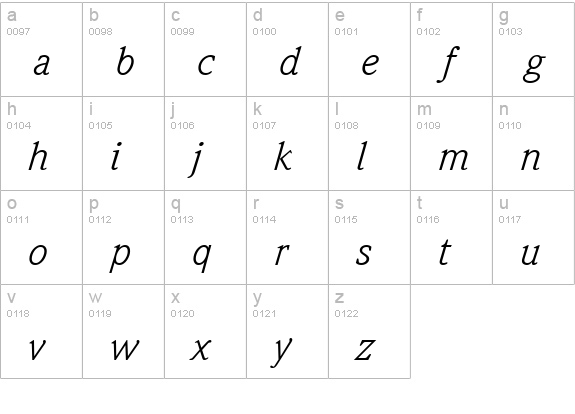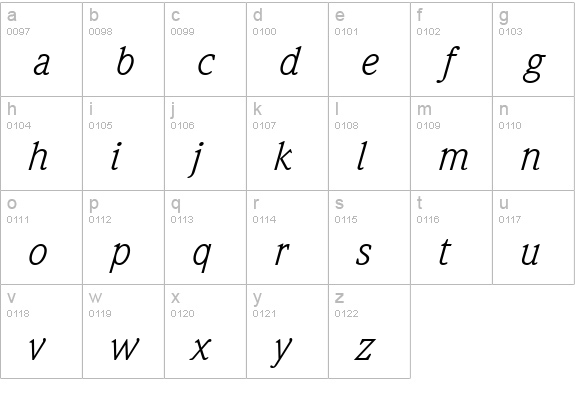
Quintessence SSi Italic is a distinctive, italic variant in the Quintessence typeface family \xE2\x80\x94 well suited to design and typography projects.
Quintessence SSi Italic font is a true masterpiece that effortlessly combines elegance, sophistication, and allure. Its beautifully curved letterforms exude a timeless grace, making it the perfect choice for any project requiring a touch of refinement. With its delicate slant and gentle strokes, Quintessence SSi Italic font adds a subtle emphasis to text, effortlessly capturing attention without overpowering the overall design. Each character is meticulously crafted, with impeccable attention to detail, resulting in a font that is both visually striking and highly legible. One of the most remarkable features of Quintessence SSi Italic font is its versatility. It seamlessly adapts to any context, be it a formal invitation, a luxurious magazine spread, or an elegant logo. Its italic style exudes a sense of movement and dynamism, lending a unique and captivating flair to any project. And the best part? Quintessence SSi Italic font is freely available to download at FontsMarket.com. This means that you can add this exceptional font to your collection without spending a dime. Whether you're a professional designer or a hobbyist, having access to such a high-quality font for free is an incredible opportunity. So, if you're in search of a font that effortlessly combines elegance, versatility, and affordability, look no further than Quintessence SSi Italic font. Download it now from FontsMarket.com and unlock its endless creative possibilities.